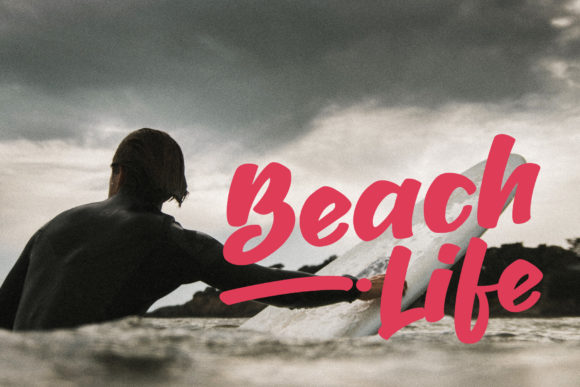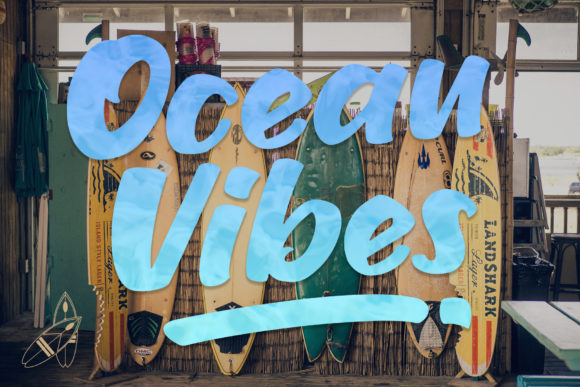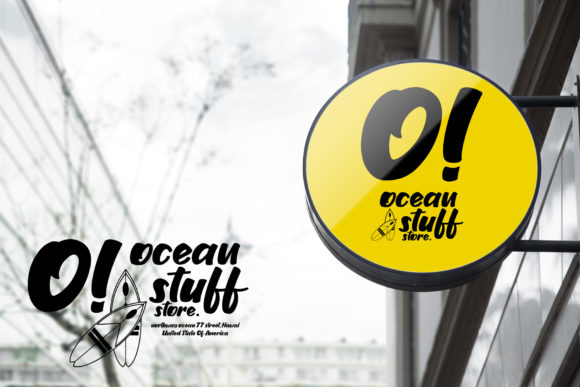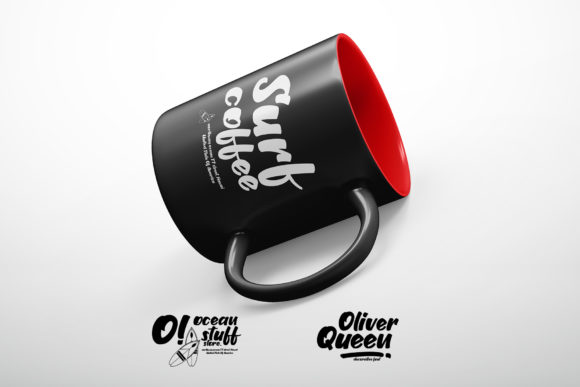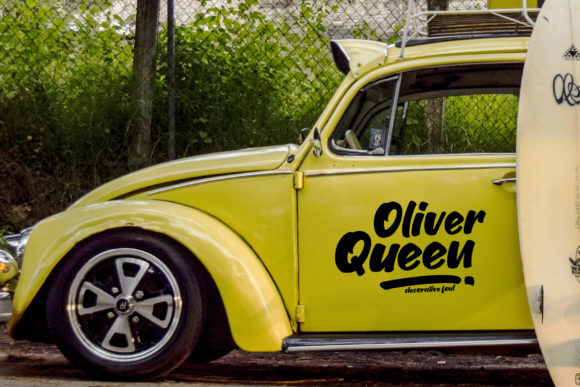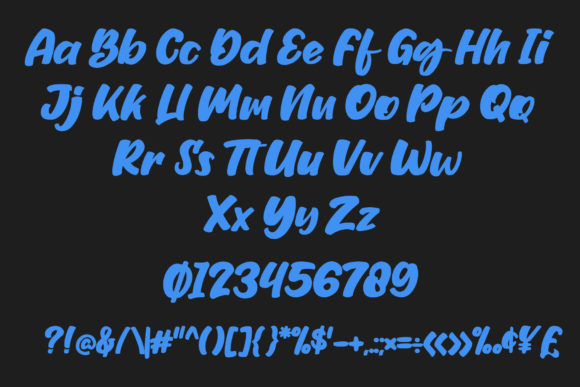
Introduction to Oliver Queen Font
As a designer, there’s nothing quite like the thrill of discovering a new font that sparks your creativity and inspires your next project. For me, that moment happened when I stumbled upon the Oliver Queen Font, a stunning bold and brushed display font that’s perfect for adding a touch of elegance to any design.
With its high-quality design and transparent background, the Oliver Queen Font is a valuable resource for any designer looking to elevate their creative project. Whether you’re working on branding, product packaging, or even a t-shirt design, this font is sure to impress. And the best part? It’s available for free download, making it an accessible design resource for designers of all levels.
But what truly sets the Oliver Queen Font apart is its versatility. From invitations to quotes, logos to labels, this font is the perfect choice for any project that requires a touch of sophistication and style.
Key Features of Oliver Queen Font
- Unique, bold, and elegant design style inspired by the character Oliver Queen from the TV series Arrow
- Features a transparent background, allowing for seamless integration with any design element
- High-quality font with clear and legible characters, perfect for use in logos, headings, and titles
- Suitable for use in a variety of creative projects, including graphic design, digital art, and typography-based art
Honest Review: Oliver Queen Font
I recently stumbled upon the Oliver Queen Font while searching for a unique design resource for a creative project. After giving it a try, I must say it’s a gem. ✨
- High quality and crisp typography make it perfect for various applications, from logos to titles.
- The transparent background allows for seamless integration with any design, giving you the flexibility you need.
However, there are a few limitations to keep in mind: ⚠️
- The font is quite ornate, which might not be suitable for all design projects.
- The number of weights and styles is limited, which could be a drawback for designers who need a wide range of options.
Overall, I’m impressed with the Oliver Queen Font. While it may not be perfect for every project, its unique style and high quality make it a great addition to any designer’s toolkit. If you’re looking for a distinctive font for your next creative project, give it a try. Just be sure to consider the limitations mentioned above.
Oliver Queen Font
The Oliver Queen Font is a high-quality design resource ideal for creative projects. This versatile font features a transparent background, making it perfect for overlaying on images or using as a standalone element.
Designing with Oliver Queen Font
Getting the Most Out of Oliver Queen Font
To maximize the potential of this font, experiment with different font sizes, colors, and effects. Combine it with other design elements to create visually appealing compositions.
The Oliver Queen Font is suitable for a wide range of creative projects, including:
- Print materials
- Presentation design
Alternatives to Oliver Queen Font
1. Comic Sans MS
Comic Sans MS is a popular sans-serif font that is ideal for creative projects, such as comic strips, cartoons, and children’s books. It’s a great choice when you need a fun and casual font that adds a touch of playfulness to your design. In comparison to Oliver Queen Font, Comic Sans MS has a more informal and cursive feel, making it suitable for projects that require a friendly tone.